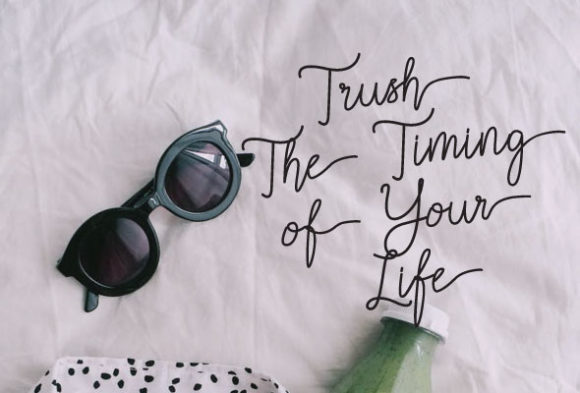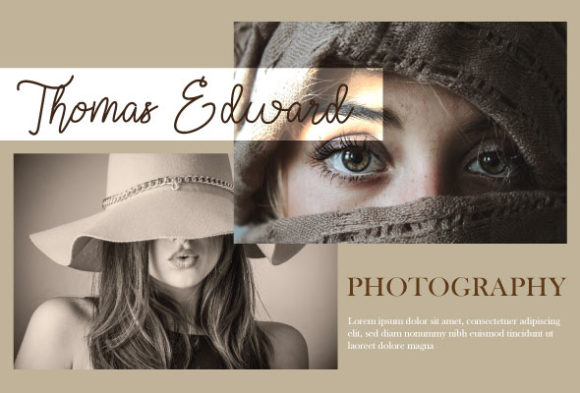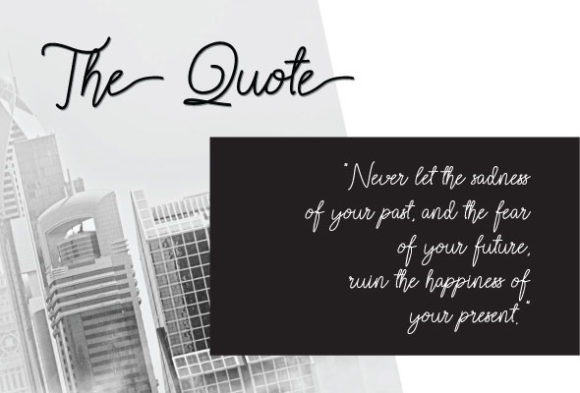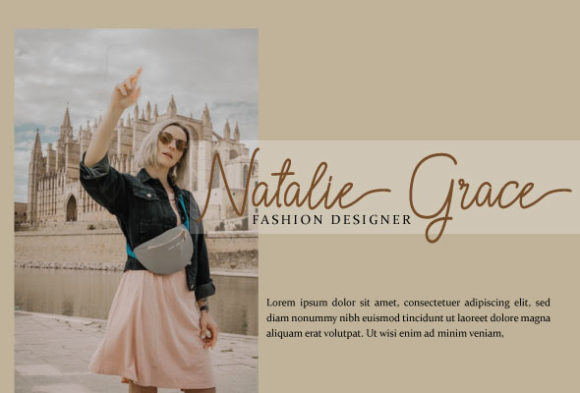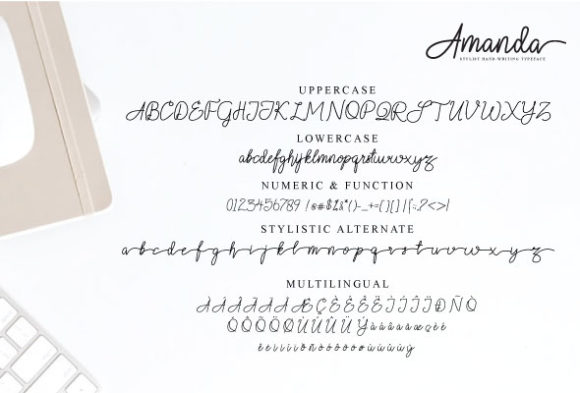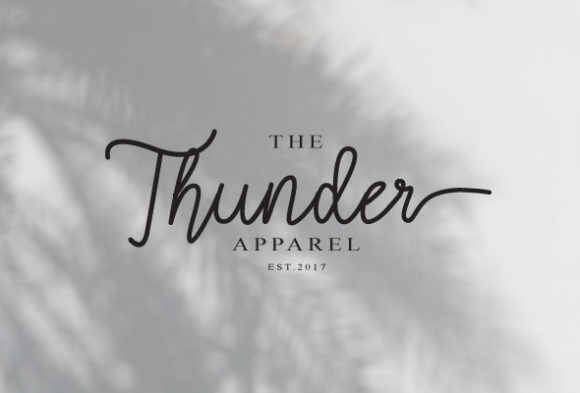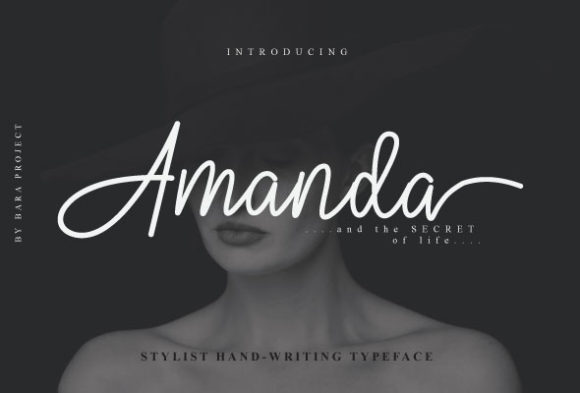
The Amanda Font: Elevate Your Creative Projects with Elegance
Have you ever been in the middle of a design project, and suddenly, you just can’t seem to find the right font? I recall a particularly frustrating experience while working on a branding project for a luxury client. The brief required a sophisticated yet playful touch, but no matter how hard I searched, I couldn’t find a font that checked all the boxes. That was until I stumbled upon the Amanda font. Its unique, elegant style instantly captured my attention, and I knew I had found the perfect fit. In this article, we’ll dive into what makes the Amanda font so special, its features, and how you can make the most of it in your creative projects.
A Personal Review: What I Love About Amanda Font
Here’s what makes the Amanda font stand out:
- ✨ Unique Signature Style: The Amanda font boasts a distinctive signature style that adds a touch of elegance and sophistication to any project.
- ✅ Versatility: Whether you’re working on a logo, a brochure, or a social media graphic, the Amanda font adapts seamlessly to various design contexts.
- 💫 Readability: Despite its elegant and cursive nature, the font maintains excellent readability, making it suitable for both headings and body text.
While the Amanda font is exceptional, there are a few minor considerations:
- ⚠️ Limited Use in Body Text: Due to its cursive and elegant nature, the Amanda font might not be the best choice for lengthy body text. It’s perfect for headings, titles, and short paragraphs but might cause readability issues in large blocks of text.
- 🤔 Pairing with Other Fonts: Finding the right font pairing can be a bit challenging. It’s essential to select complementary fonts that enhance the overall aesthetic without overshadowing the Amanda font.
Exploring OpenType Features, Glyphs, and Stylistic Alternates
One of the standout features of the Amanda font is its support for OpenType features. These features allow you to customize your text with:
- Stylistic Alternates: Offers variations of letters that can be used to create a more personalized look.
- Glyphs: Provides access to additional symbols and icons that can enhance your design.
The Designer Inspiration Behind Amanda Font
The Amanda font was inspired by classic calligraphy and modern design trends. Its creator aimed to craft a font that embodies elegance and versatility, making it suitable for a wide range of creative projects. The name ‘Amanda’ reflects the font’s sophisticated yet approachable personality.
Q: What makes the Amanda font unique?
A: The Amanda font stands out due to its distinctive signature style, versatility, and excellent readability, making it perfect for various design projects.
Q: Is the Amanda font suitable for body text?
A: While the Amanda font is elegant and readable, it’s primarily designed for headings and short paragraphs. For lengthy body text, consider using a more straightforward, sans-serif font.